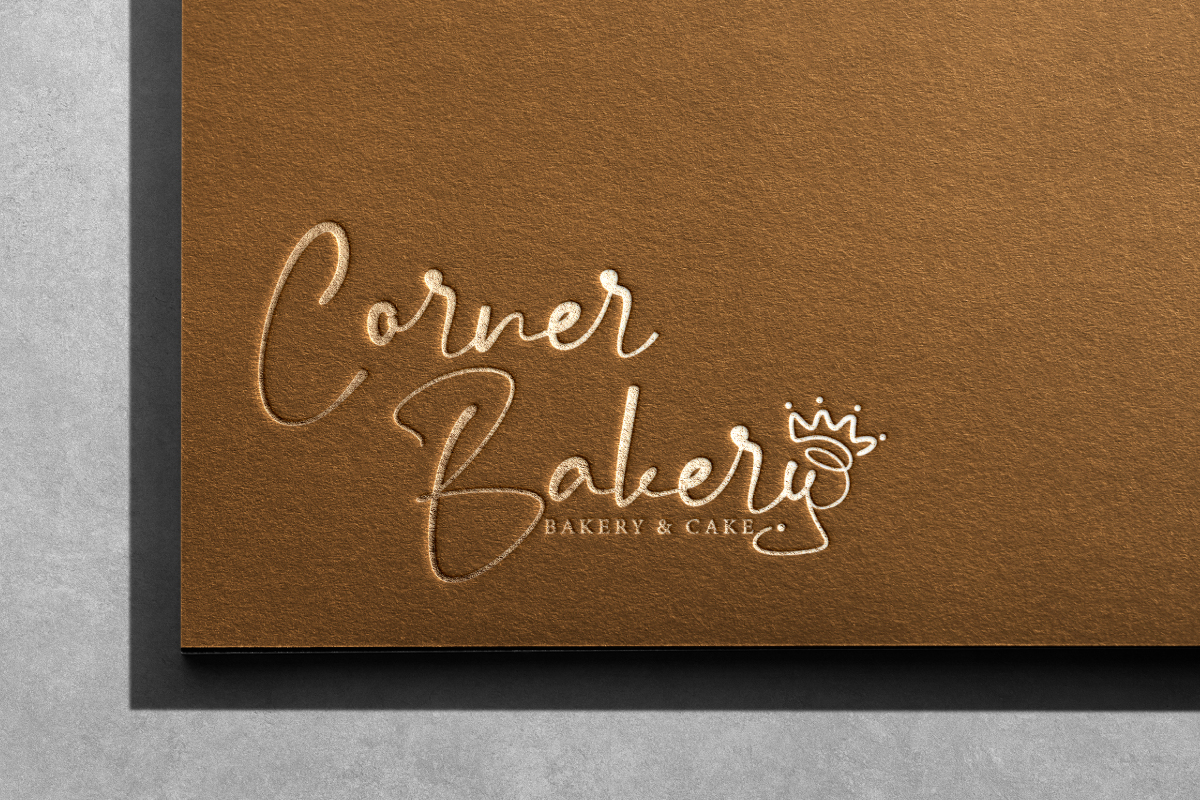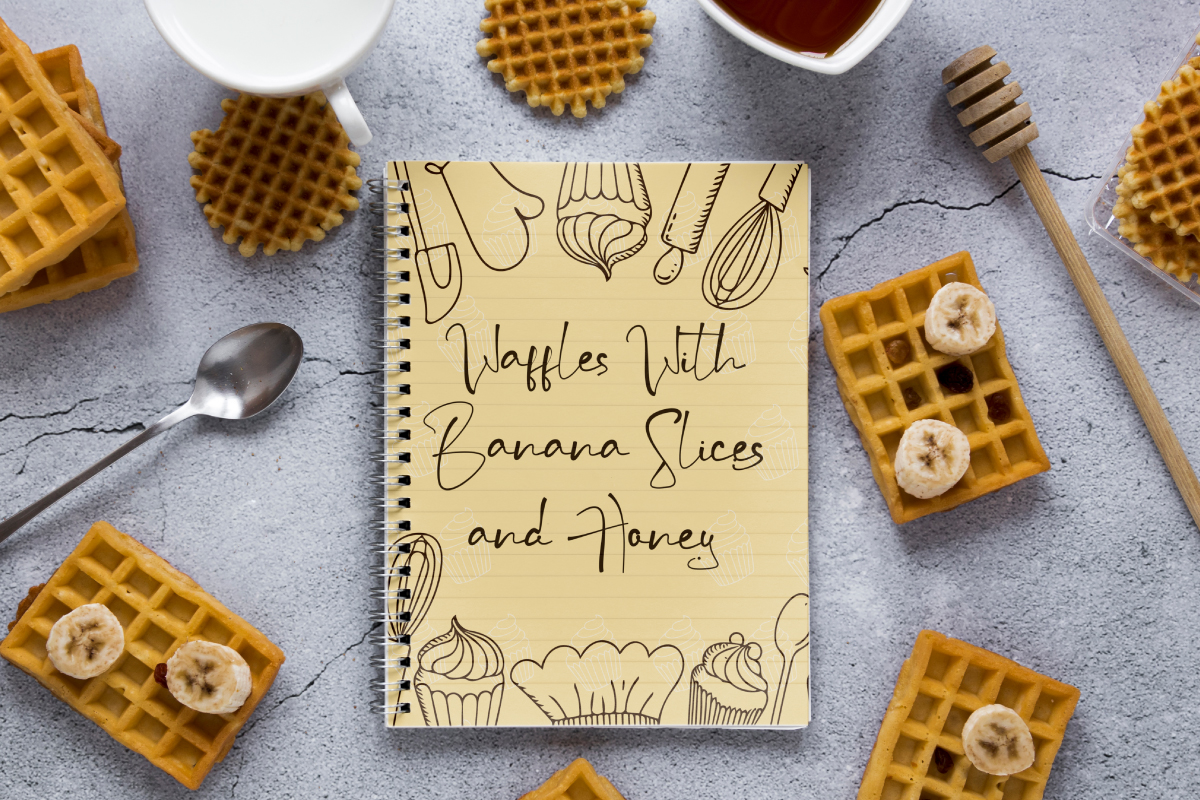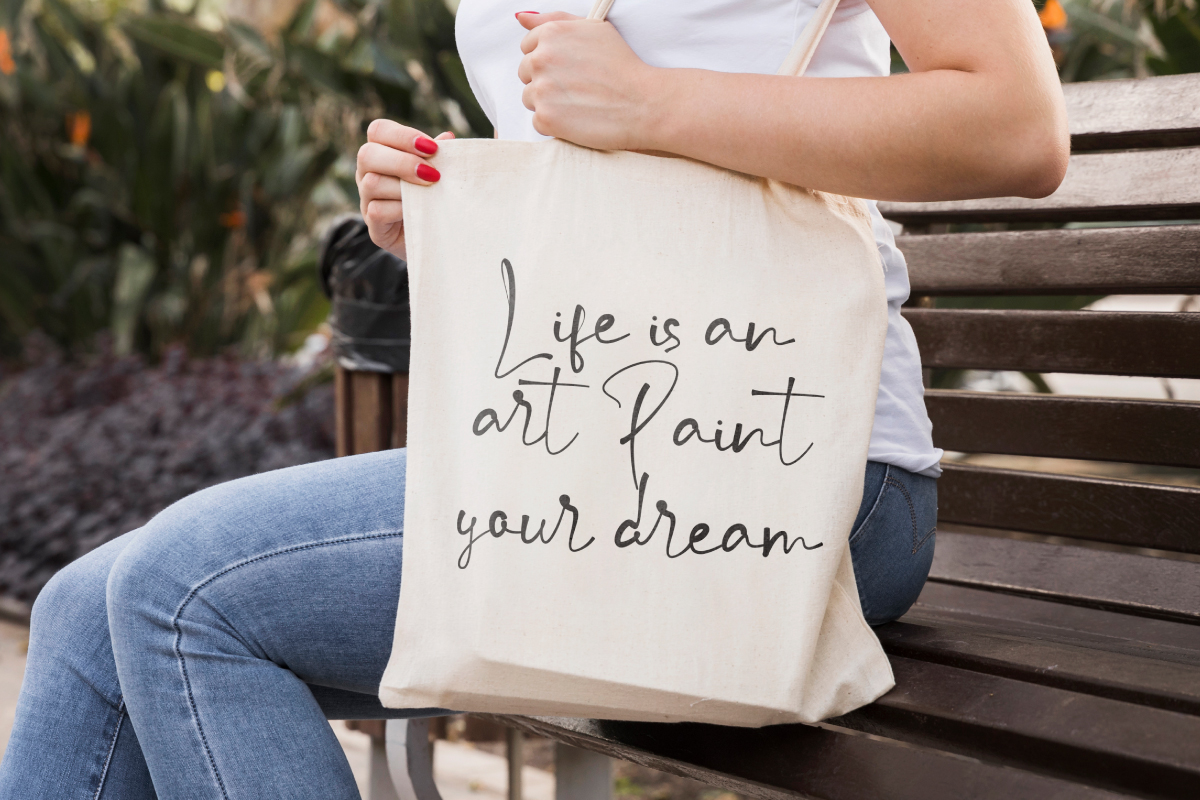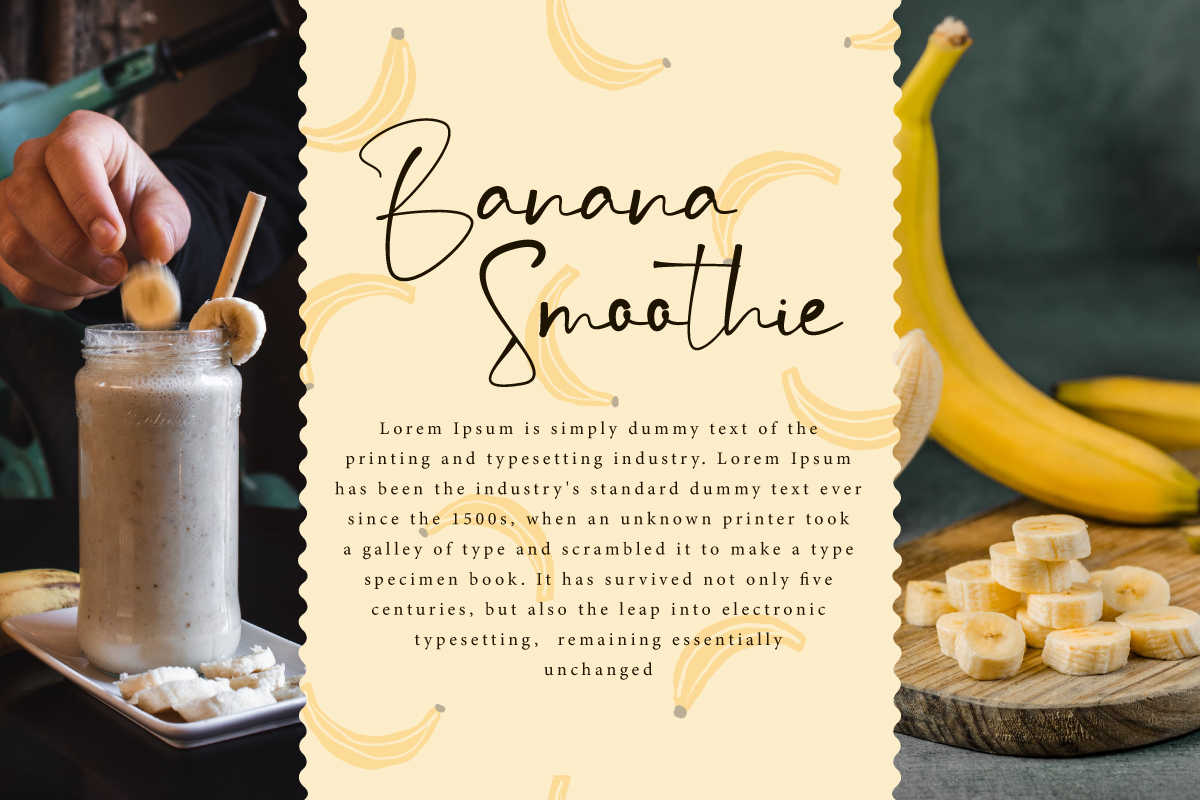
Banana Coronet Font
Banana Coronet Handwritten Font is a sweet handwriting script font by EdricStudio. This has a unique character’s shapes : thin and stylish so it’s perfect for many industries, such as bakery, café, cake, cooking, fashion brand, handicrafts, homeware, pastry, restaurant, spa, and anything that requires an awesome classy look.
Banana Coronet Font comes with a full set of Uppercase and Lowercase Basic Characters, Number, large range of Punctuation and Symbol, Ligature, Alternate, and also Swoosh. It has a stunning characters set, perfectly managed with well spaced and kerning. Banana Coronet Font will be great for any projects (with extended license) including : billboard, brand logo, labels, menu, mockup design, screen printing, stationery, title, much more.